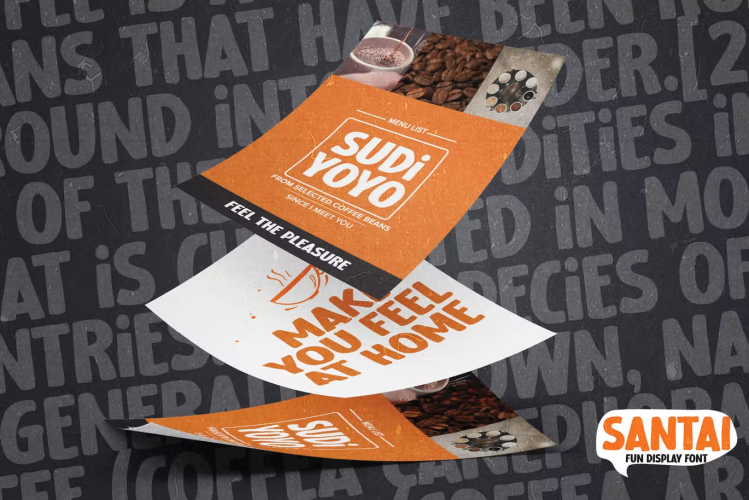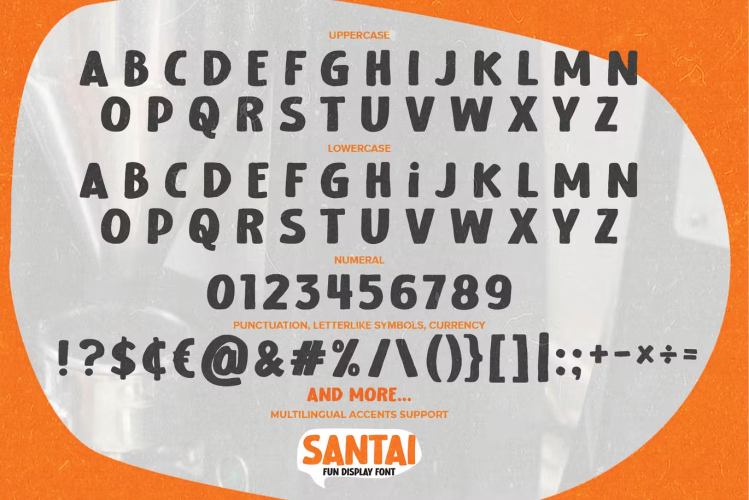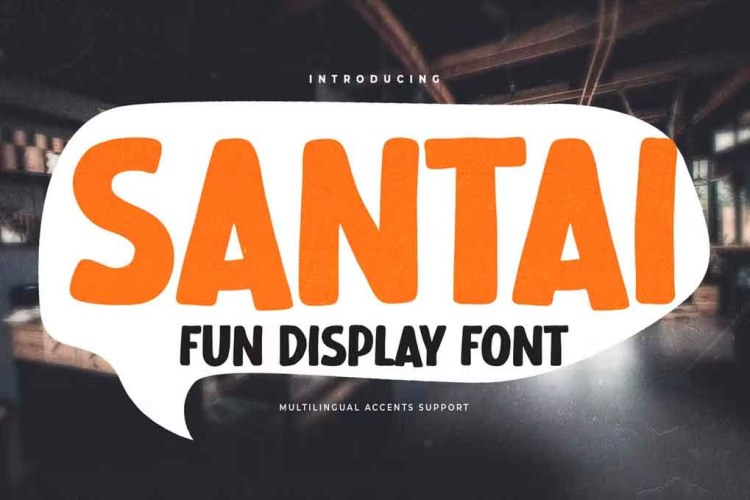
SANTAI Fun Display Font
Hello Everyone, introduce our new product Font SANTAI is a Fun Display Font .This is a Textured Natural Style and classy style with a clear style and dramatic movement.
This font SANTAI is great for your next creative project such as logos, printed quotes, invitations, cards, product packaging, headers, Logotype, Letterhead, Poster, Design this font is great for your creative projects such as watermark on photography, and perfect for logos & branding, invitation,advertisements,product designs, stationery, wedding designs,label ,product packaging, special events or anything that need handwritting taste. That is has charming, authentic and relaxed characteristic more natural look to your text.
Where SANTAI Fun Display Font works best
SANTAI Fun Display Font keeps its shape at 14 and 16 pixels, which is where interface text actually lives. Numbers and capitals stay distinguishable in tables.
Presentations are read at a distance; a clean sans with a strong bold is the safest hierarchy you can build in a hurry.
Simple letterforms survive angles, glare and movement, so SANTAI Fun Display Font suits door signs, menus boards and exhibition panels.
What kind of work does SANTAI Fun Display Font suit?
It sits in the Sans Serif Fonts group and reads as branding, christmas, creative, display. That makes it a candidate wherever those qualities help: headings, packaging, social graphics and brand work. Set it at the size you plan to use before deciding.